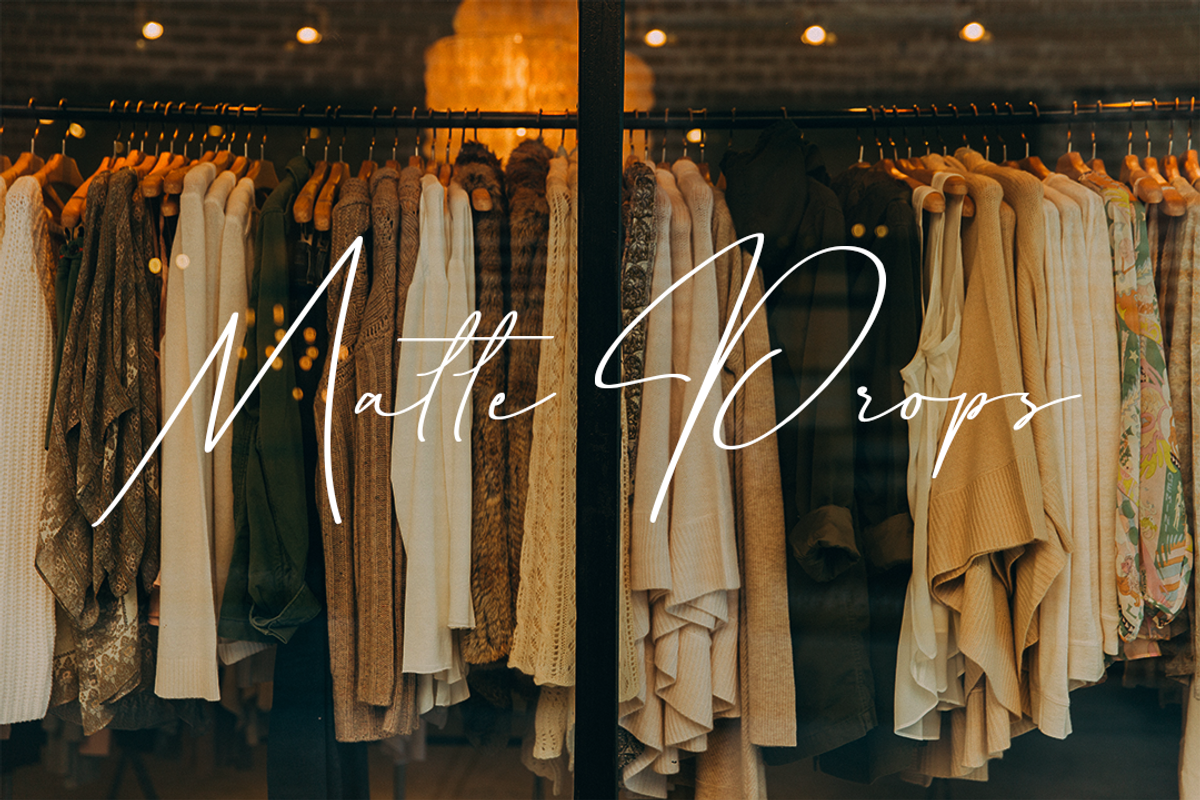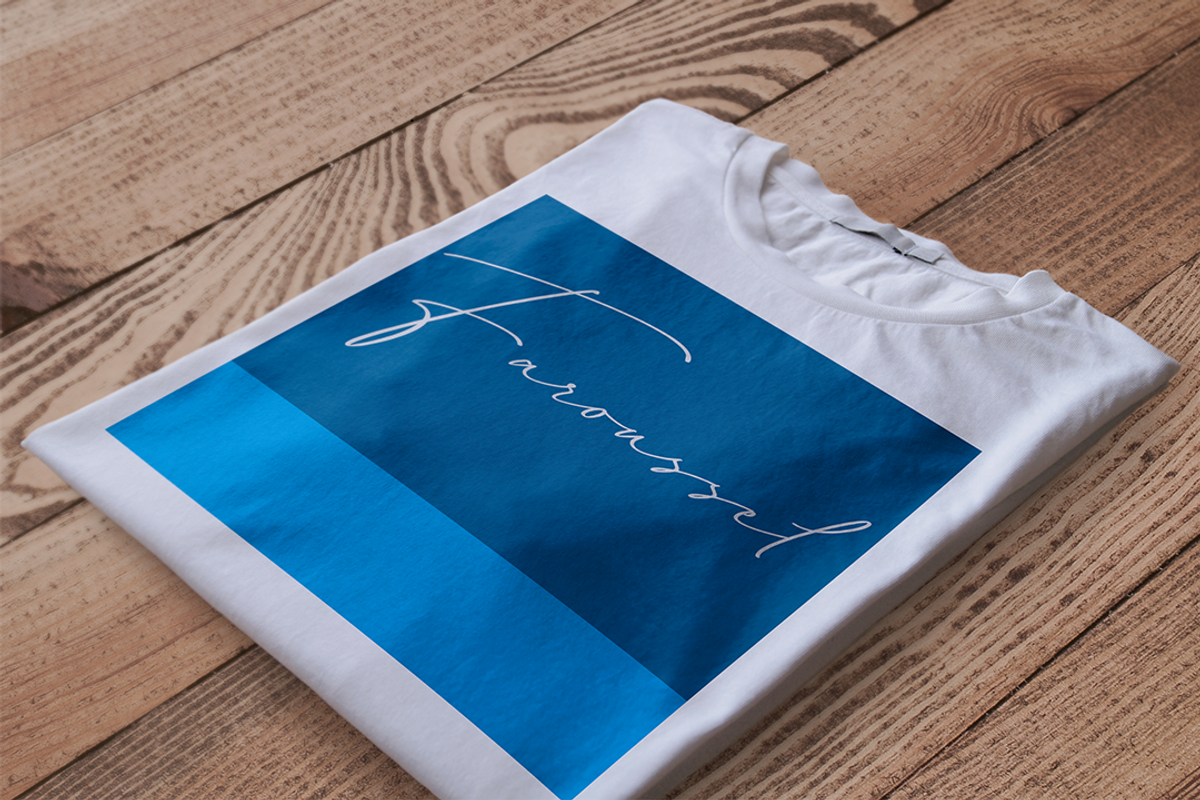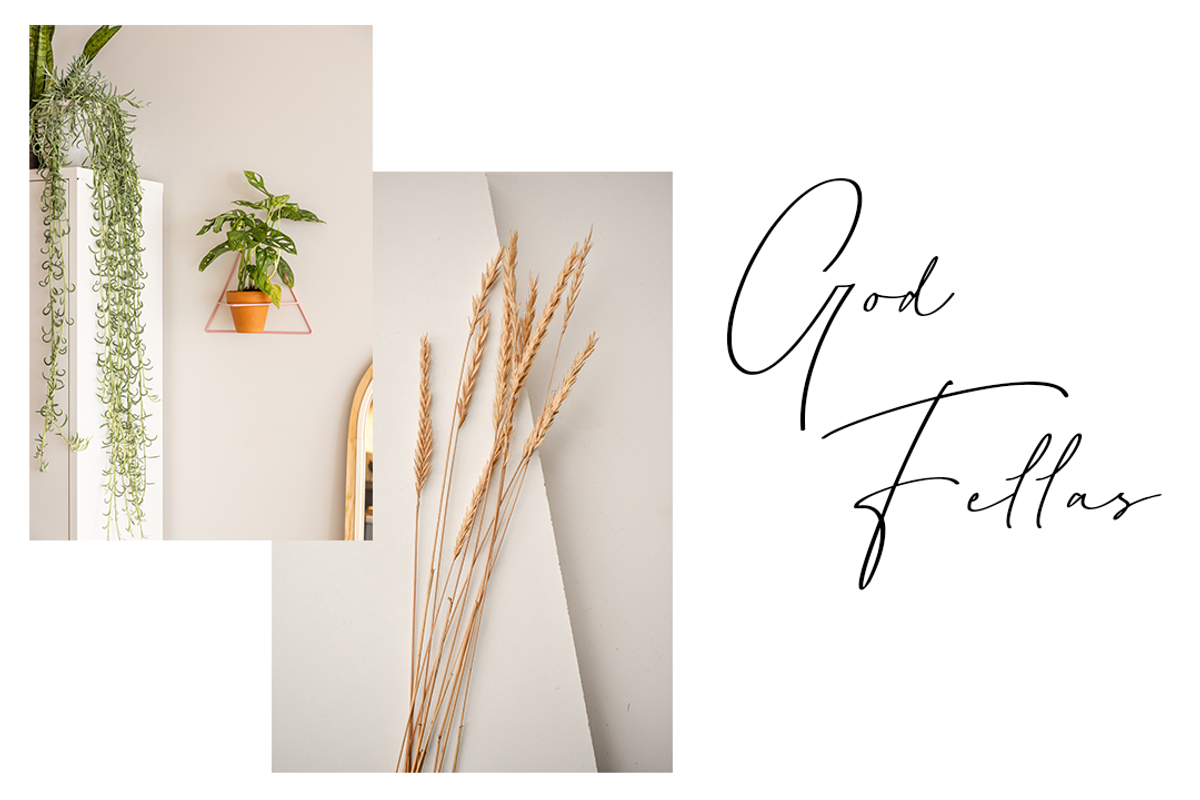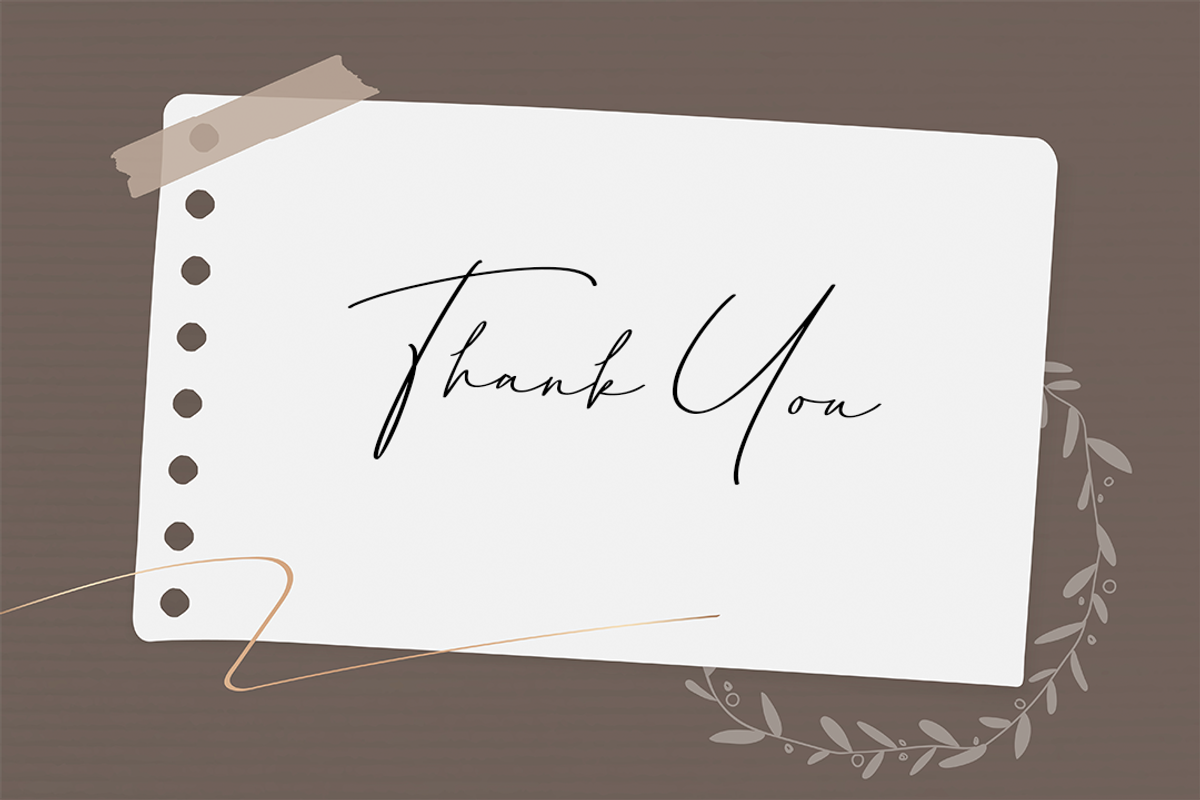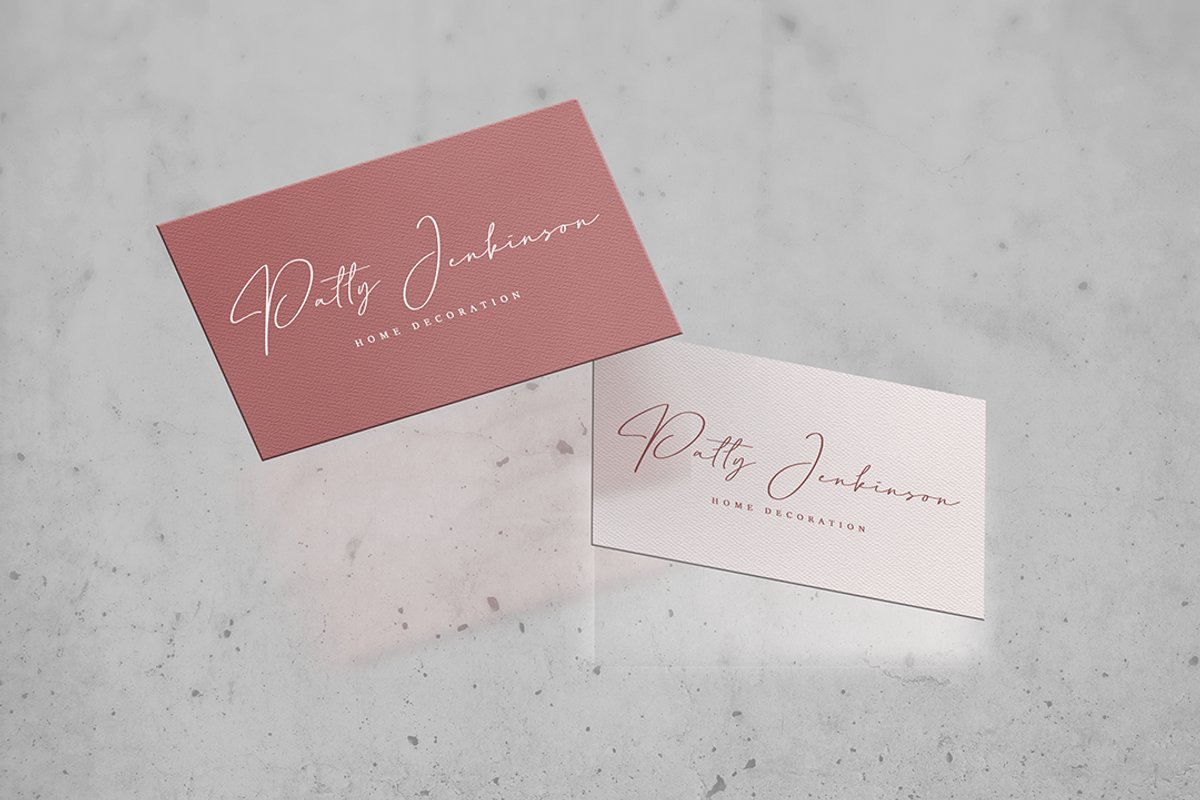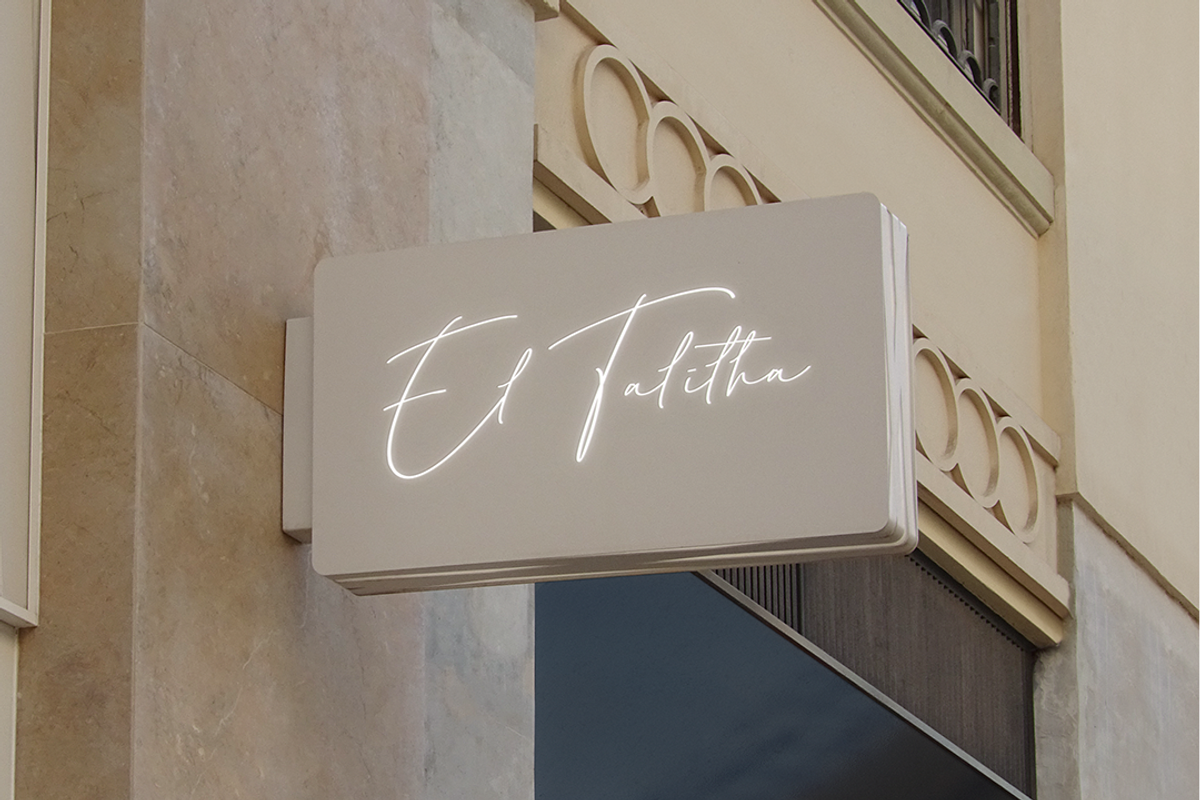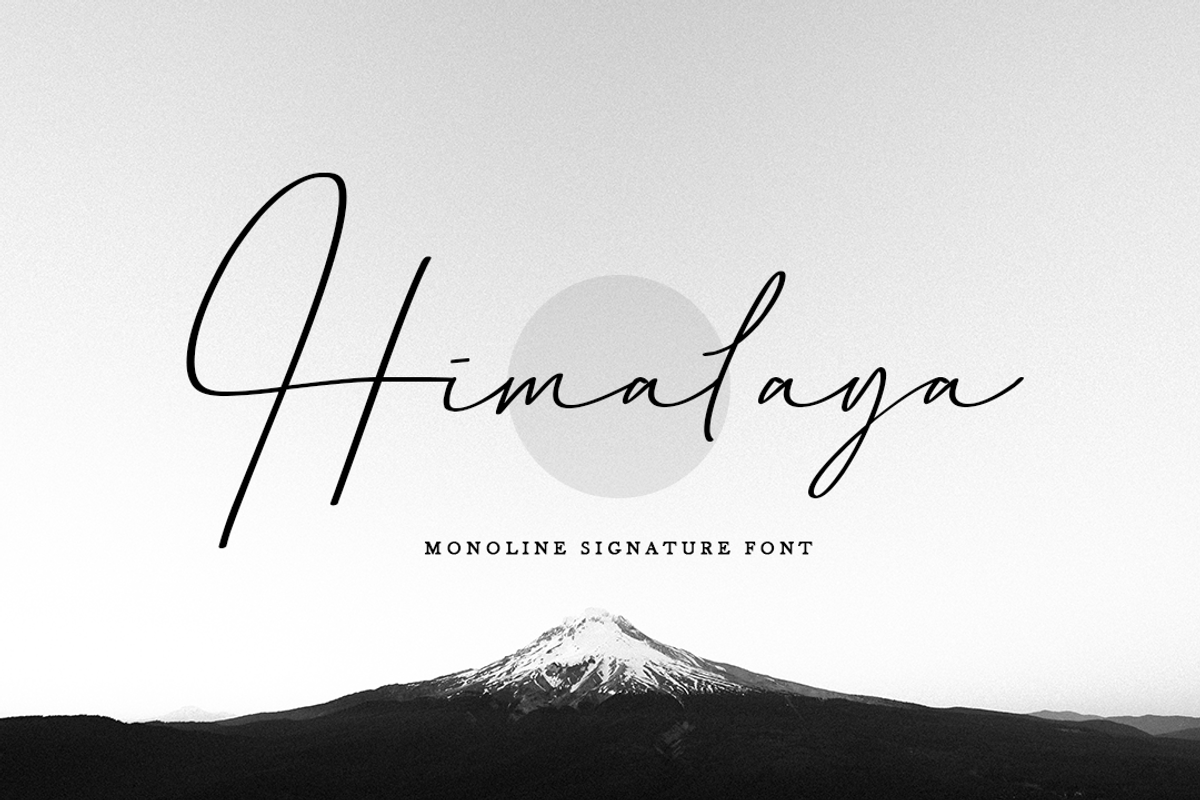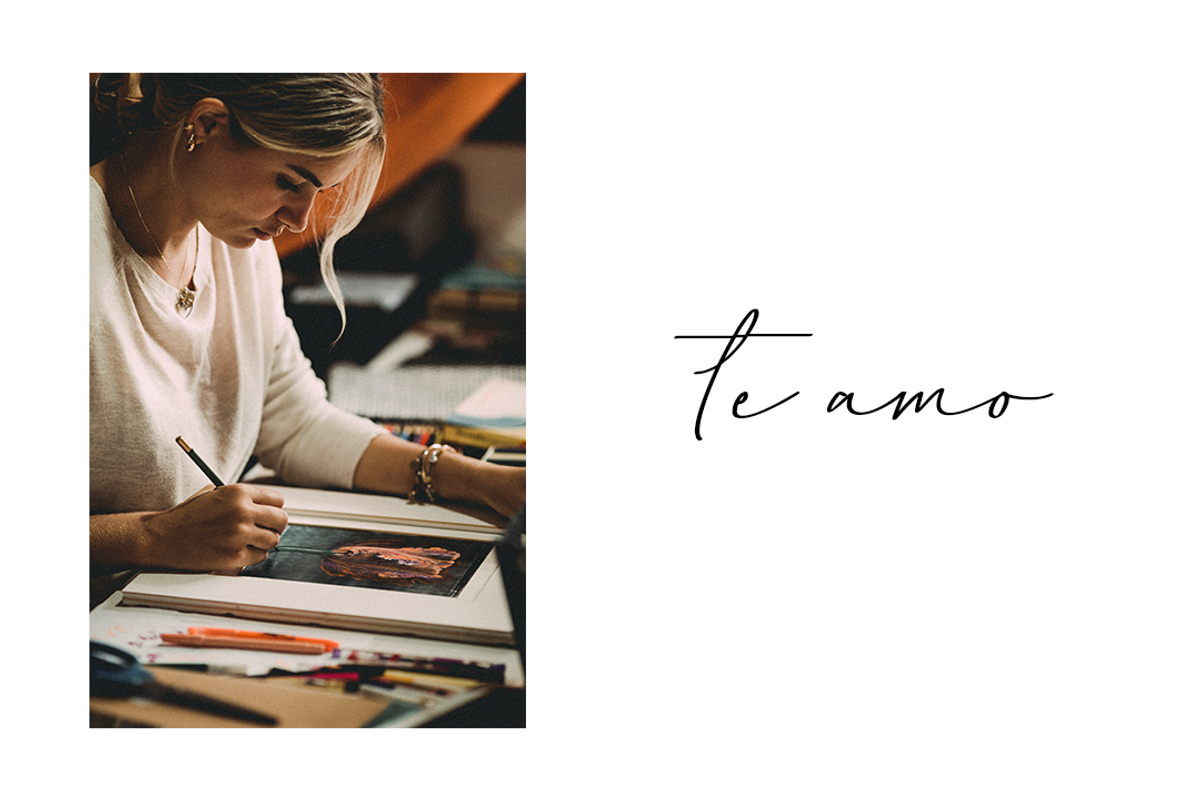
Himalaya | Monoline Signature Font
Hi! Introducing my newest font called Himalaya.
Himalaya is an elegant script font with a contemporary atmosphere and impeccable form, inspired by timeless classic calligraphy. Not too thin and not too thick, balanced and varied, this font was designed to enhance the beauty of your projects.